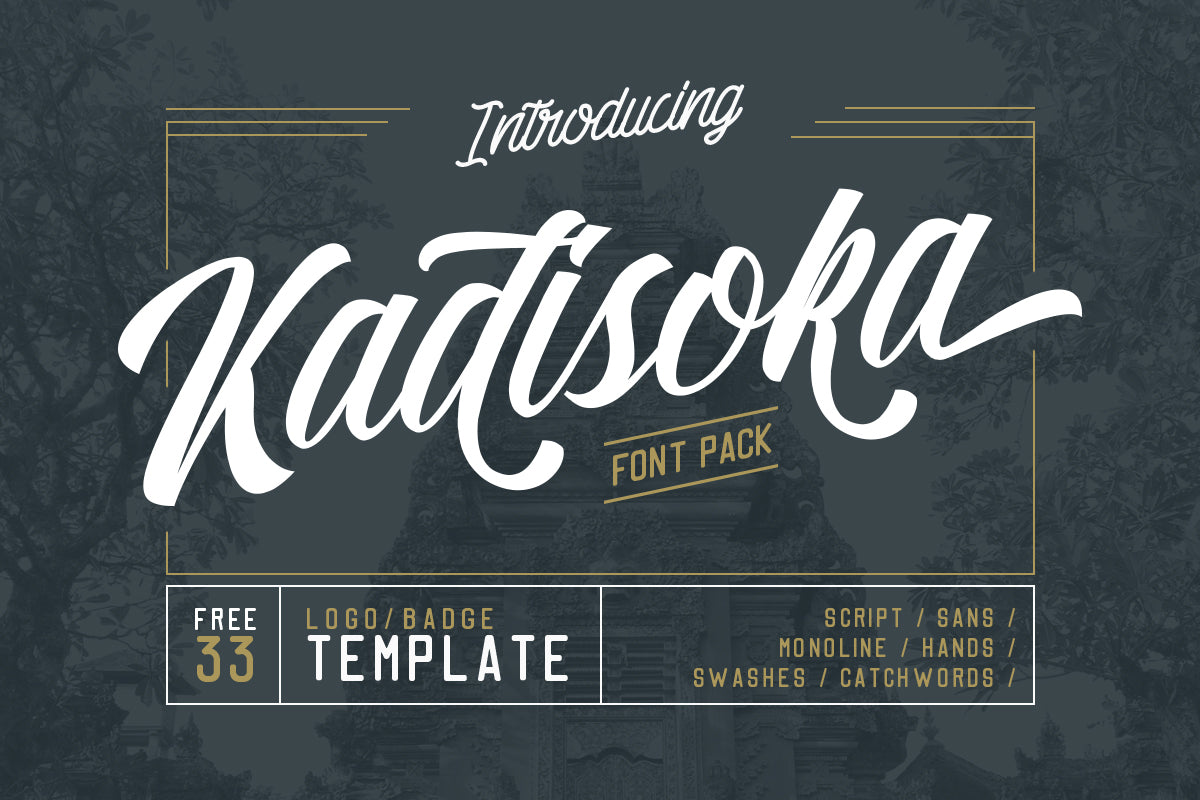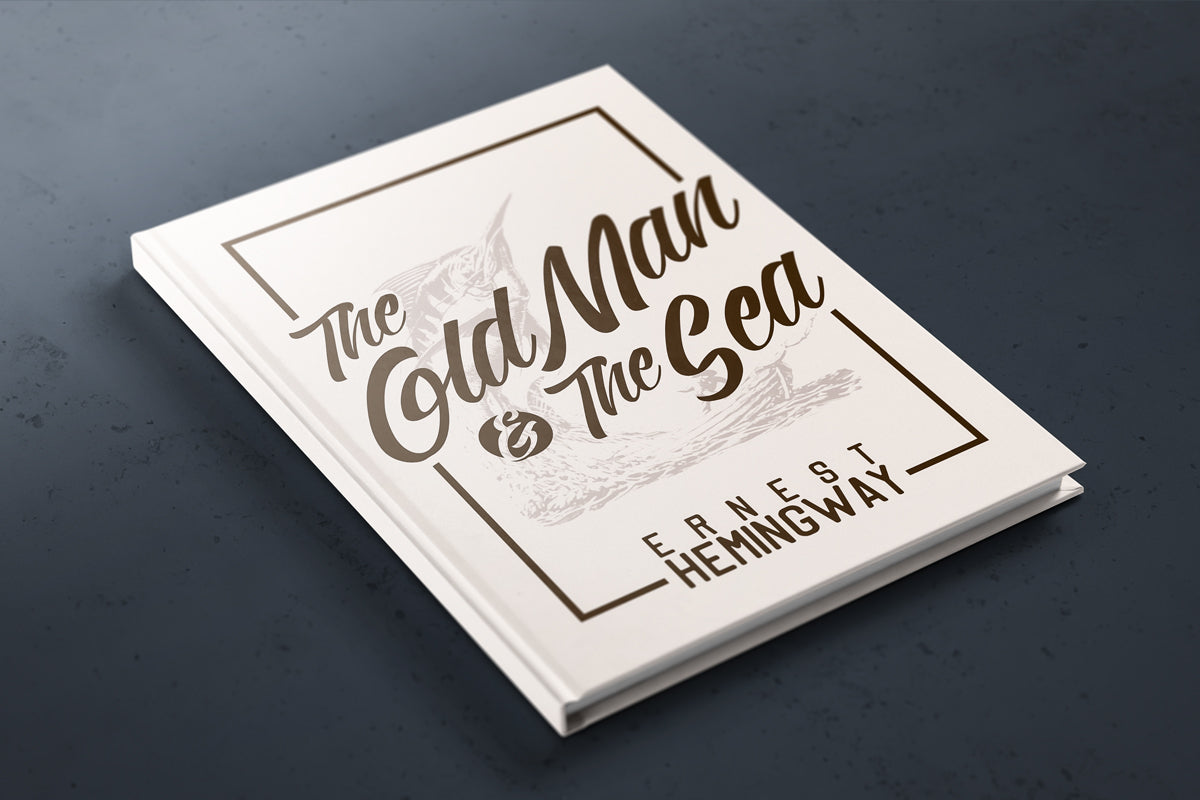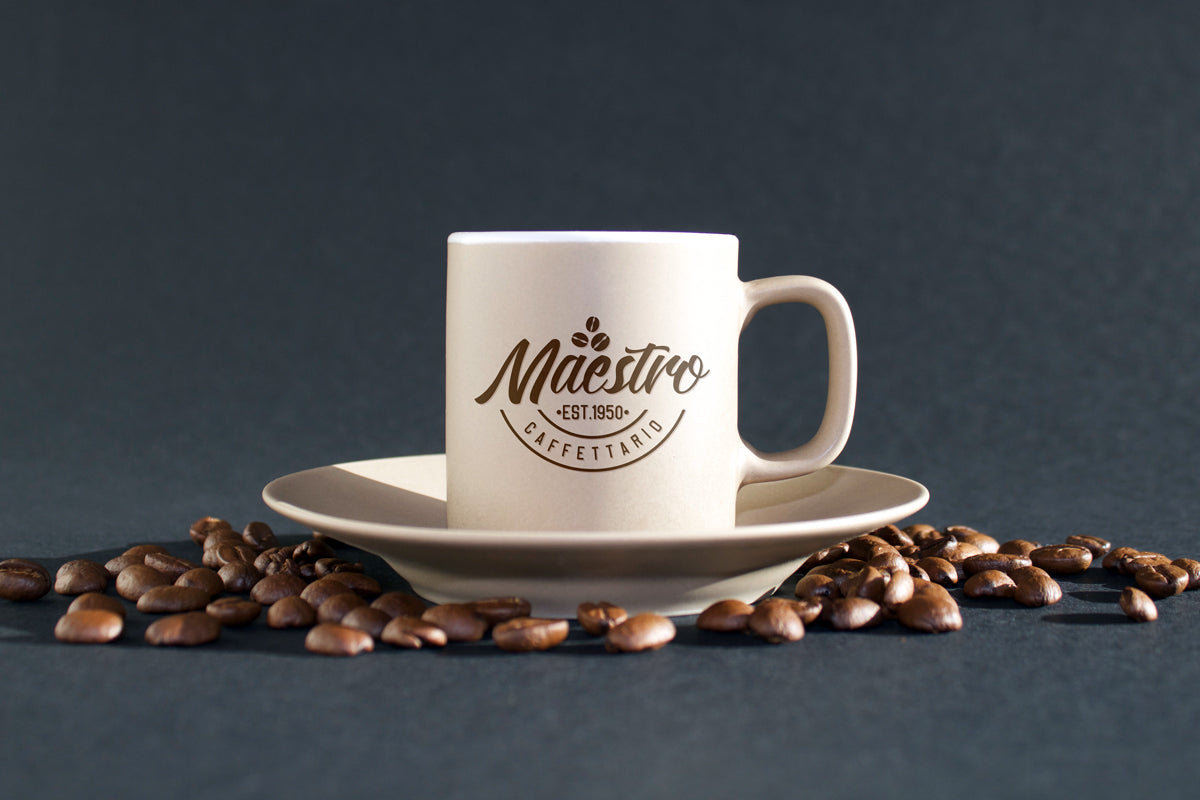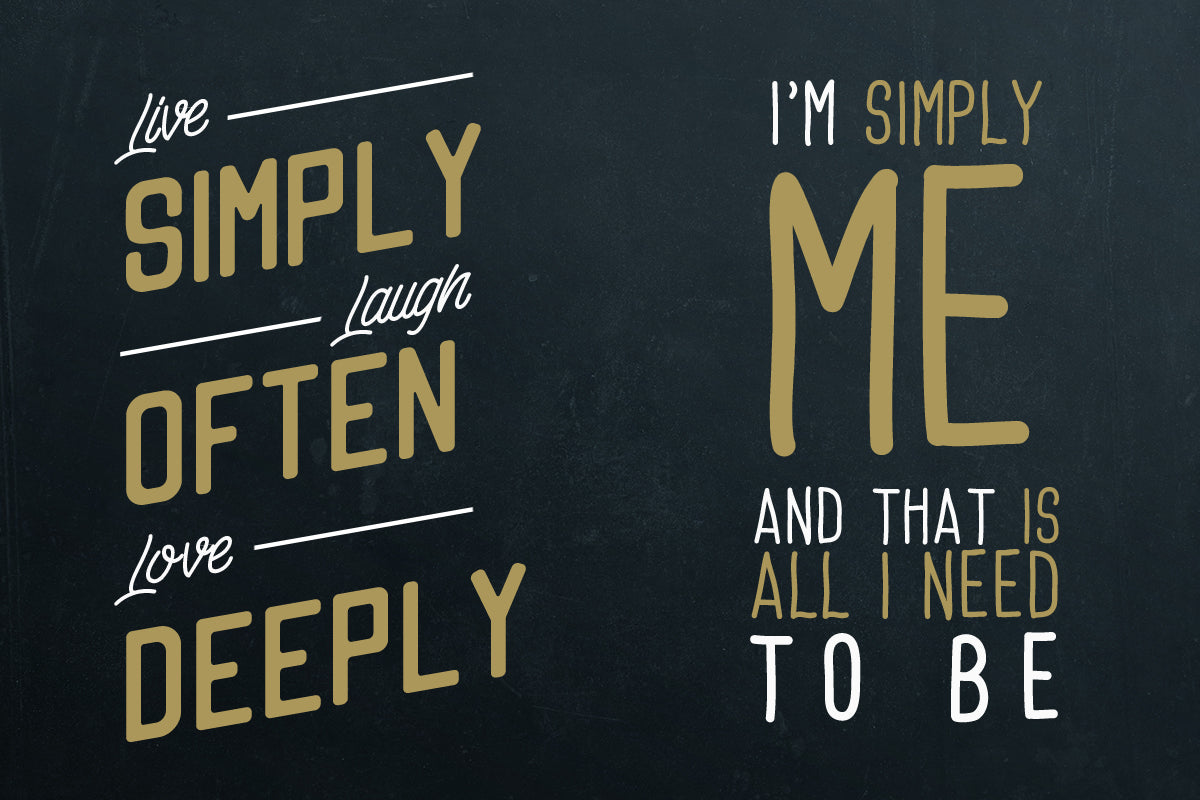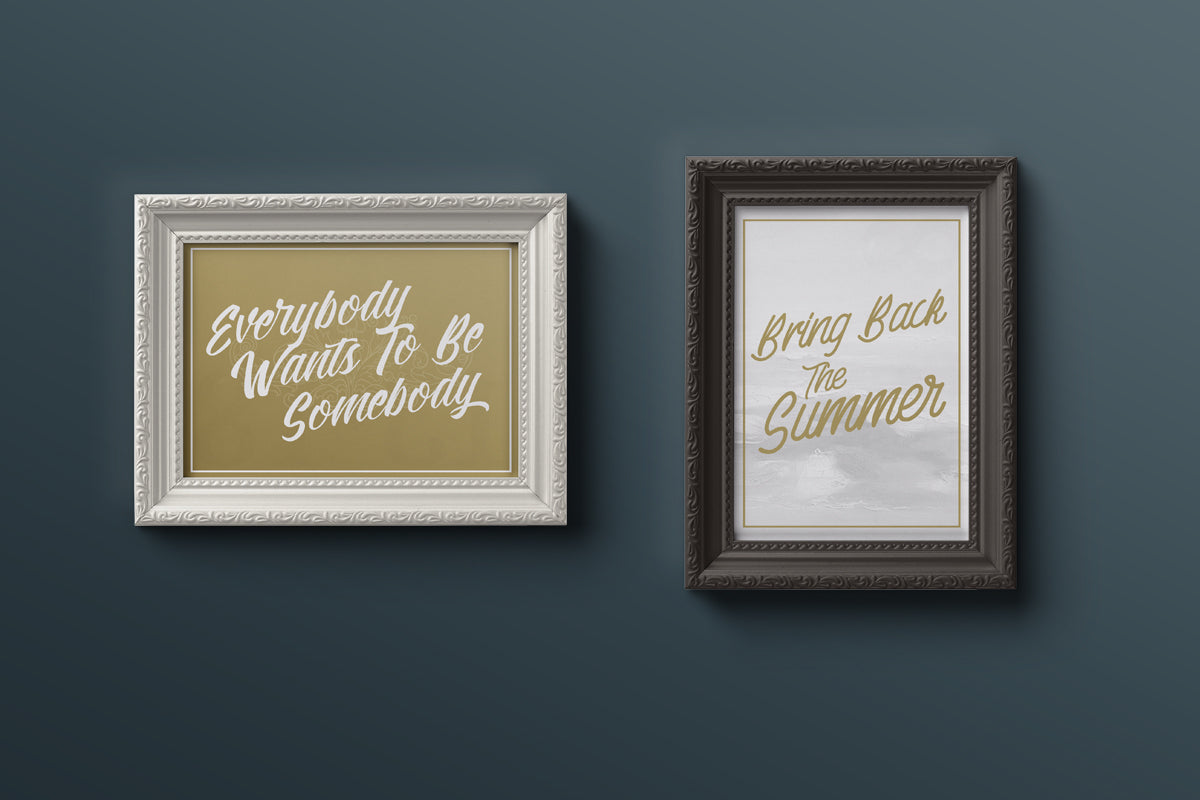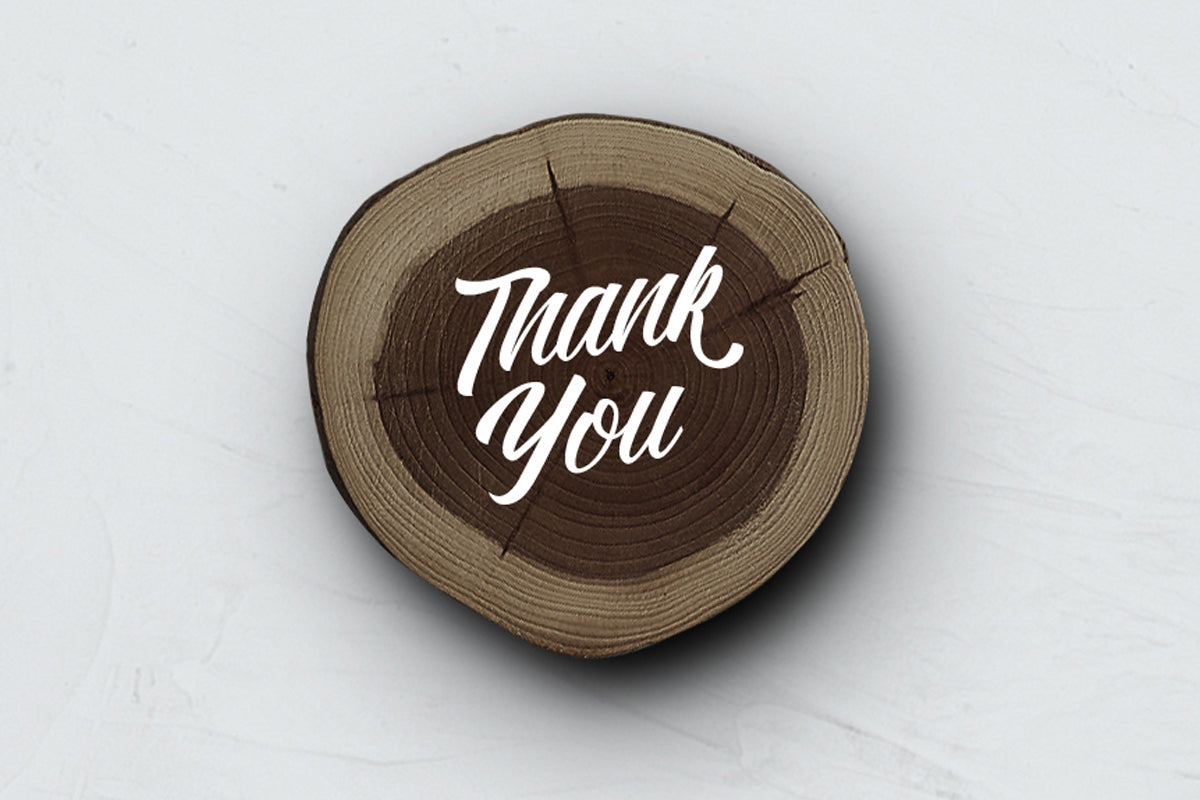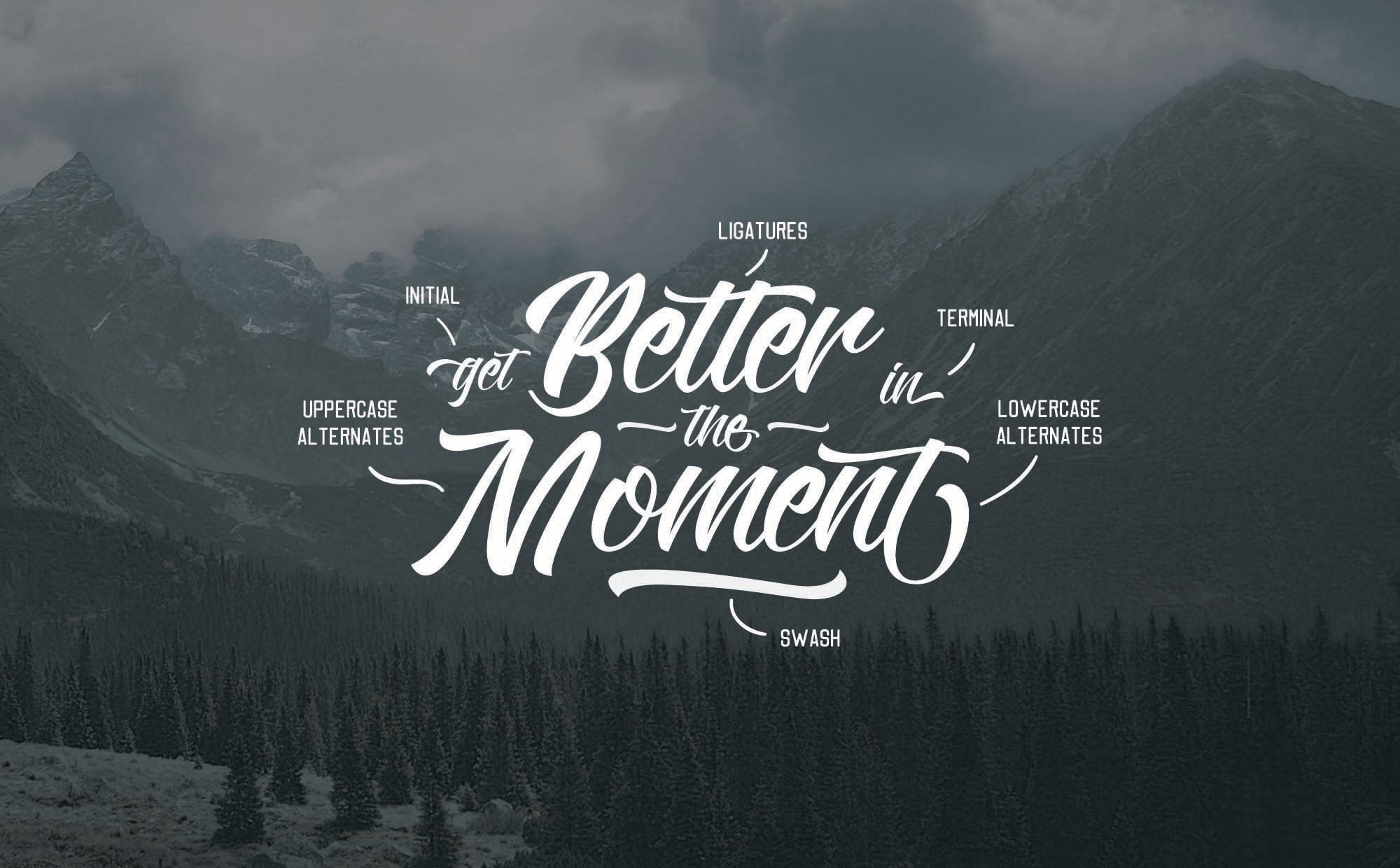
Introducing my first debut: the Kadisoka Font Pack! The reason I called this product a font pack is that it consists of many items which will make it irresistible to purchase!
KADISOKA SCRIPT: The main font of this product, featuring 680+ glyphs! This includes OpenType features like ligatures, stylistic alternates, and numerous stylistic sets. This typeface is based on manual handwriting, making it very suitable for any design need, especially for script logotype projects.
KADISOKA MONOLINE: Features 180+ glyphs with upper and lowercase standard characters, punctuation, and numerals, including ligatures and stylistic alternates as well.
KADISOKA SANS: A neat and nice complementary typeface that is perfect to combine with the other Kadisoka fonts, or to use as a main font.
KADISOKA HAND: A typeface with a handwriting feel, perfect for fun and casual projects. Works well as both a complementary and main font.
KADISOKA SWASHES: Contains swashes and catchwords that you will need to make your project look even more awesome!